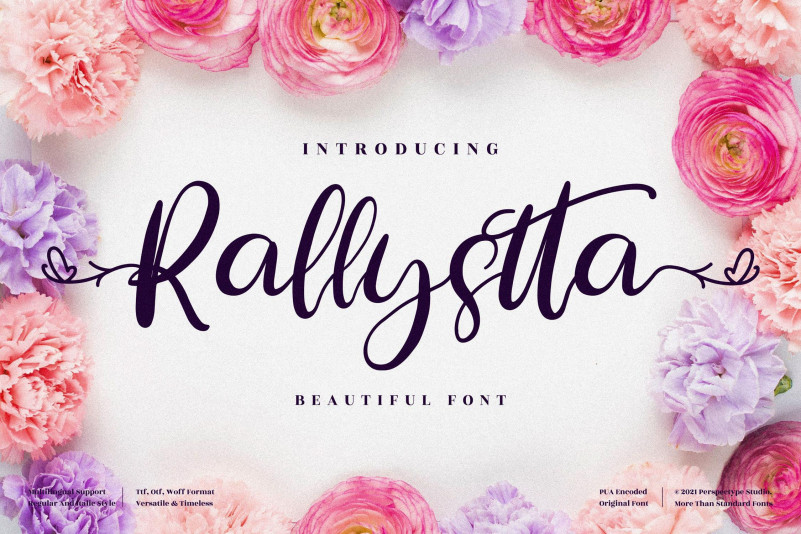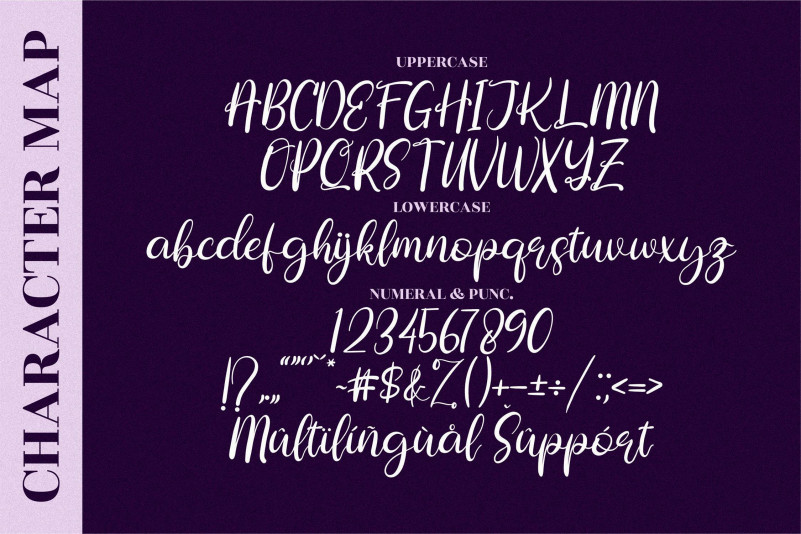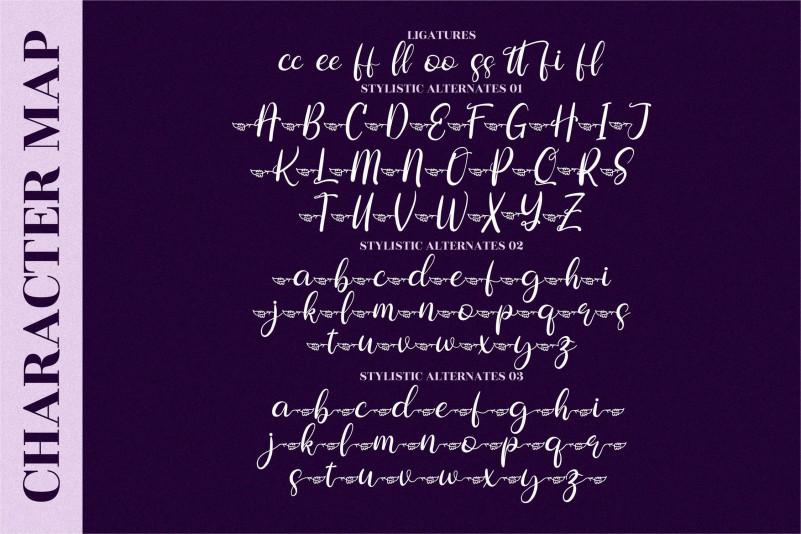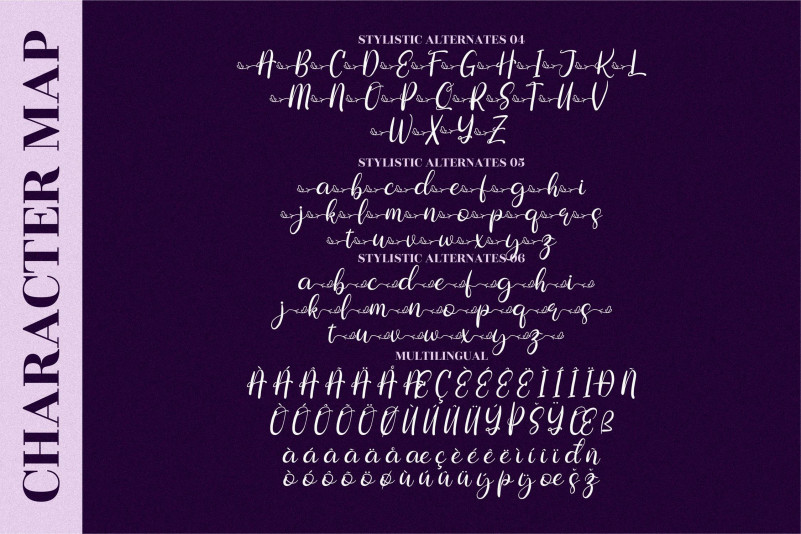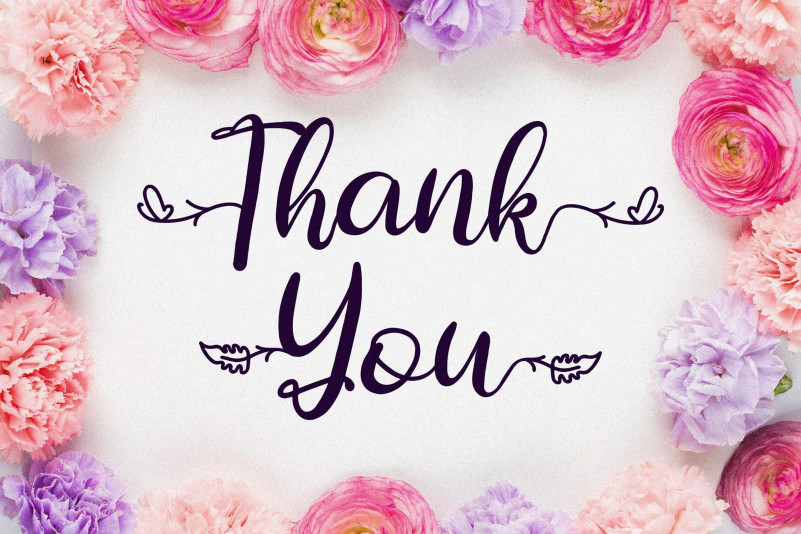
Rallystta Font
Rallystta Calligraphy Font
This is a chic, refined script font that emanates sophistication and elegance. Its stylish alternates and ligatures make this font the perfect match for any project. Rallystta is PUA encoded which means you can access all of the glyphs and swashes with ease!